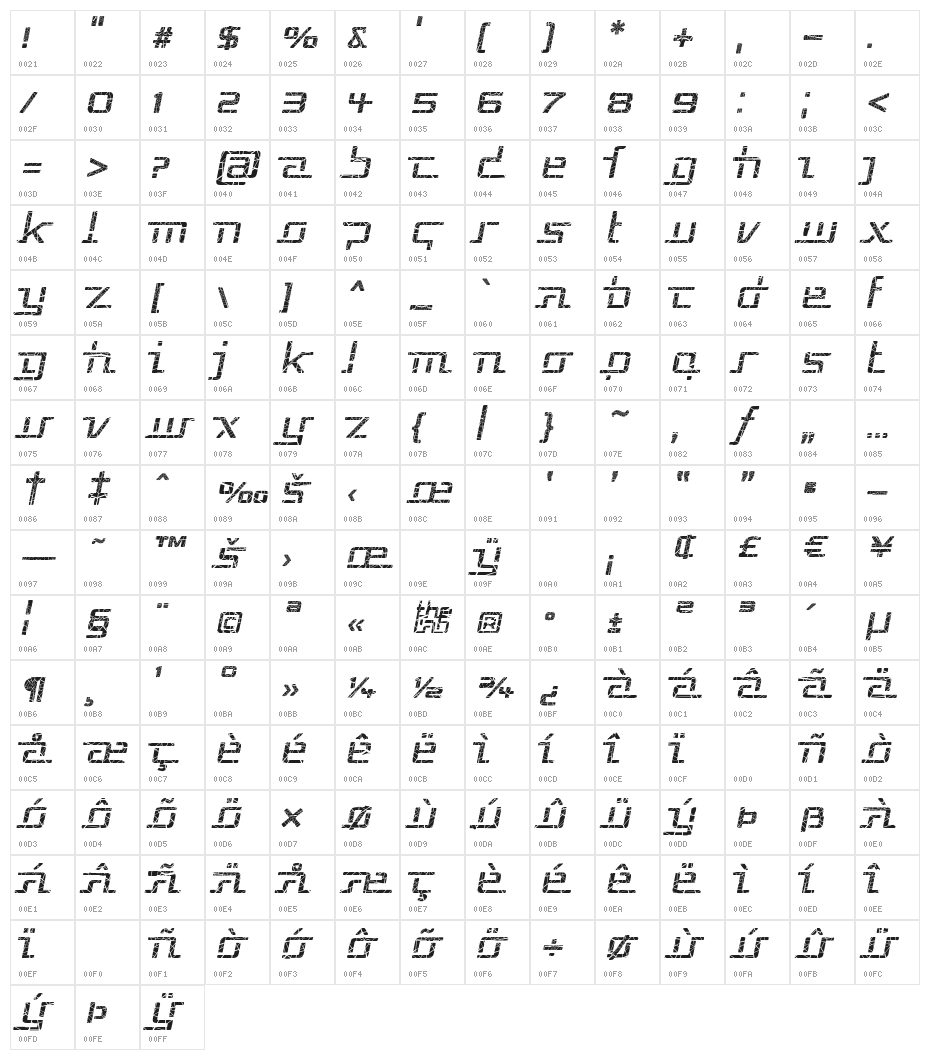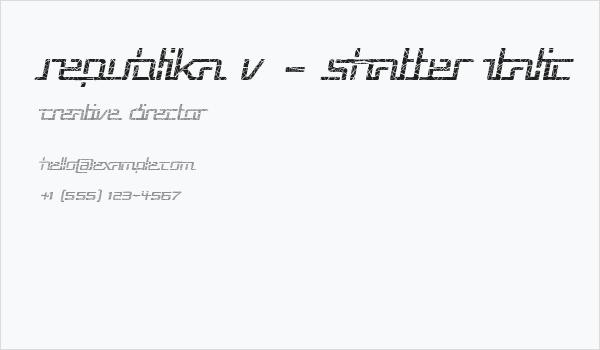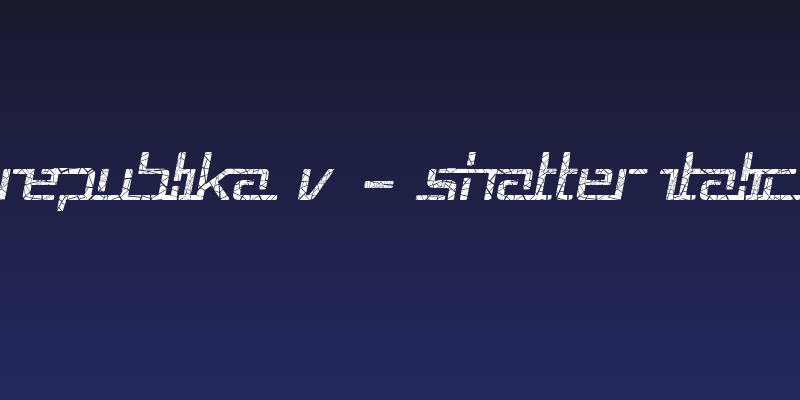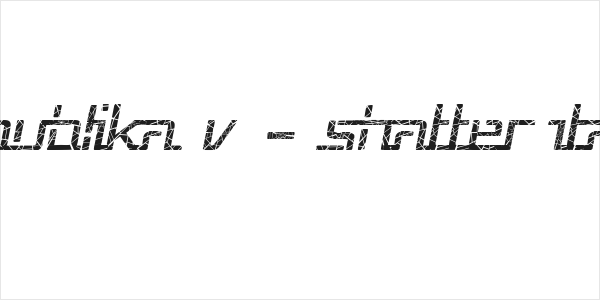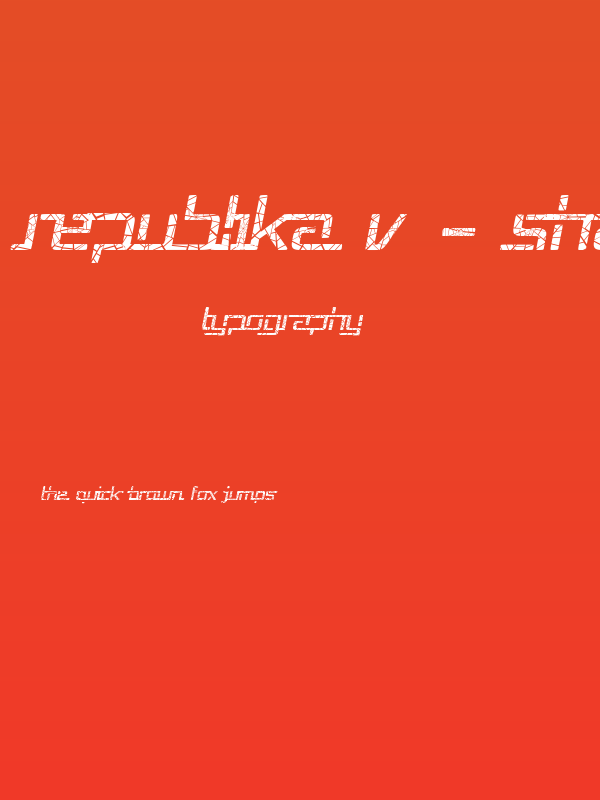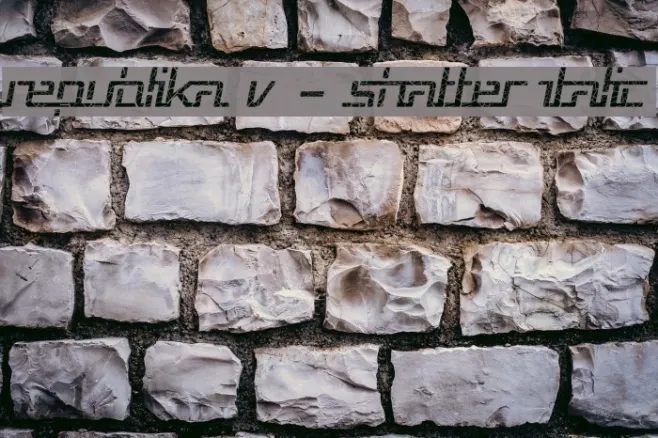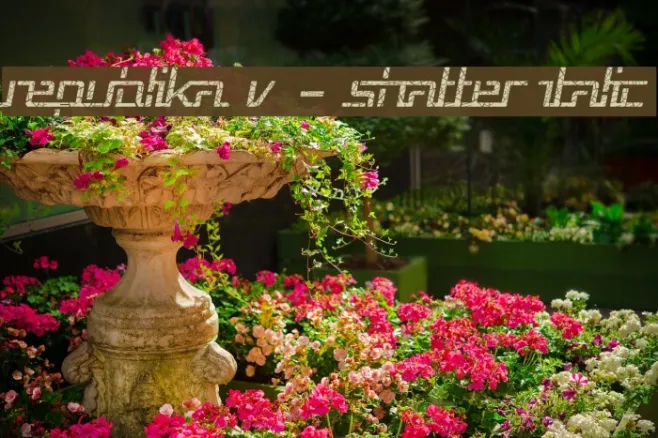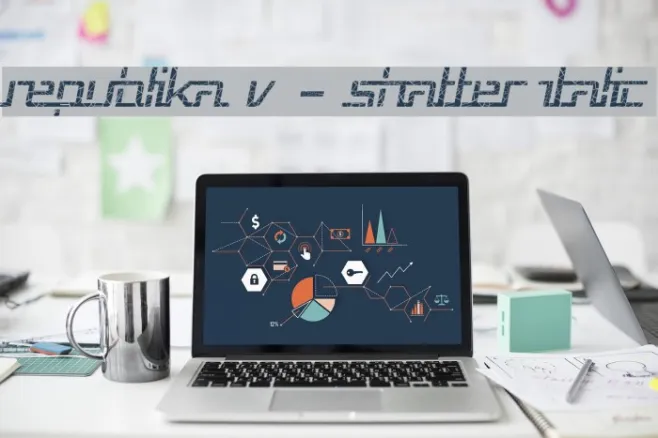
Republika V - Shatter Italic Font
Republika V - Shatter Italic Description
This font features a unique shattered effect, giving each character a fragmented and dynamic appearance. The letters are italicized, adding a sense of movement and fluidity. The geometric design is consistent throughout, with sharp angles and a modern aesthetic. The uppercase and lowercase letters maintain a cohesive style, while the numbers and special characters complement the overall look. This font is ideal for projects that require a bold and edgy statement, as it captures attention with its distinctive style.
| Proposed Projects | Ideal for edgy branding, music album covers, event posters, and digital art projects. |